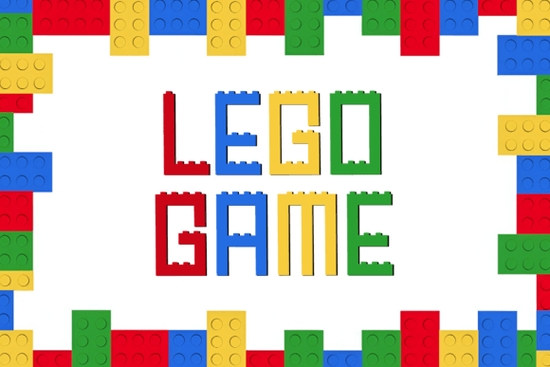
If you're looking for a handwritten script font that blends elegance with everyday usability, the Lego Game Font is worth a closer look. It’s not related to the toy brand despite the name but instead offers a graceful, modern display style with fluid strokes and soft ornamental curves. This makes it especially appealing for designers and small business owners who want something that feels both professional and gently romantic without sacrificing legibility.
What sets Lego Game apart is its consistent weight and clean letter connections. Unlike some script fonts that become hard to read at smaller sizes or in dense layouts, this one maintains clarity while still delivering personality. Whether you’re designing custom mugs, wedding invitations, boutique logos, or sublimation apparel, it holds up beautifully across digital and print formats.
When should you use a font like Lego Game?
This typeface shines in projects where tone matters as much as typography. Think:
- Personalized gifts (like engraved jewelry tags or keepsake boxes)
- Boutique branding for skincare, floral shops, or bakeries
- Custom stationery thank-you cards, place cards, or envelope addressing
- Print-on-demand products such as tote bags, T-shirts, or wall art
It’s less suited for body text or technical documents, but that’s not its purpose. As a display font, it’s meant to catch the eye and convey mood and Lego Game does that with quiet confidence.
How does it compare to other stylish script fonts?
If you’ve browsed Creative Fabrica’s collection, you’ve likely seen other popular display scripts. For example, Block Retro Font leans into bold, geometric shapes great for vintage-inspired signage but very different in feel. Meanwhile, Thick Juliet Font offers dramatic contrast and flair, ideal for luxury branding but heavier than Lego Game’s airy flow.
For those who prefer a preppy aesthetic, Preppy Styles Font brings structured neatness with a collegiate vibe. On the opposite end, Grunge Bold X Font delivers raw, textured energy perfect for edgy merch but not for delicate designs. And if you like warmth with thickness, Thick Honey Font offers cozy, rounded charm that pairs well with rustic themes.
Lego Game sits comfortably between these extremes: refined but not stiff, decorative but readable, feminine without being frilly.
Tips for using Lego Game effectively
To get the most out of this font, keep these practical suggestions in mind:
- Avoid overcrowding. Give the letters room to breathe especially in logos or headlines. Its curves need space to show their detail.
- Pair it wisely. Combine it with a simple sans-serif (like Montserrat or Lato) for balance. The contrast helps the script stand out without overwhelming the layout.
- Test print quality. If you’re using it for physical products, print a sample first. Some printers struggle with fine script details, though Lego Game’s clean joins usually hold up well.
- Use OpenType features if available. Many versions include alternate characters or ligatures that add subtle variation great for making each design feel unique.
Remember, even the most beautiful font won’t fix poor composition. Focus on hierarchy, spacing, and context. A well-placed phrase in Lego Game can elevate a simple gift tag into something memorable.
Is this font right for your next project?
If your work calls for warmth, polish, and a touch of whimsy without tipping into overly ornate territory then yes. It’s particularly strong for creators who serve clients in lifestyle, wellness, weddings, or handmade goods. And because it’s designed for commercial use (always double-check the license), it’s safe for small businesses selling custom products.
Before committing, consider your audience. Would they respond to soft curves and gentle rhythm? Or do they expect bold, minimalist, or rugged typography? Matching font personality to brand voice is half the battle.